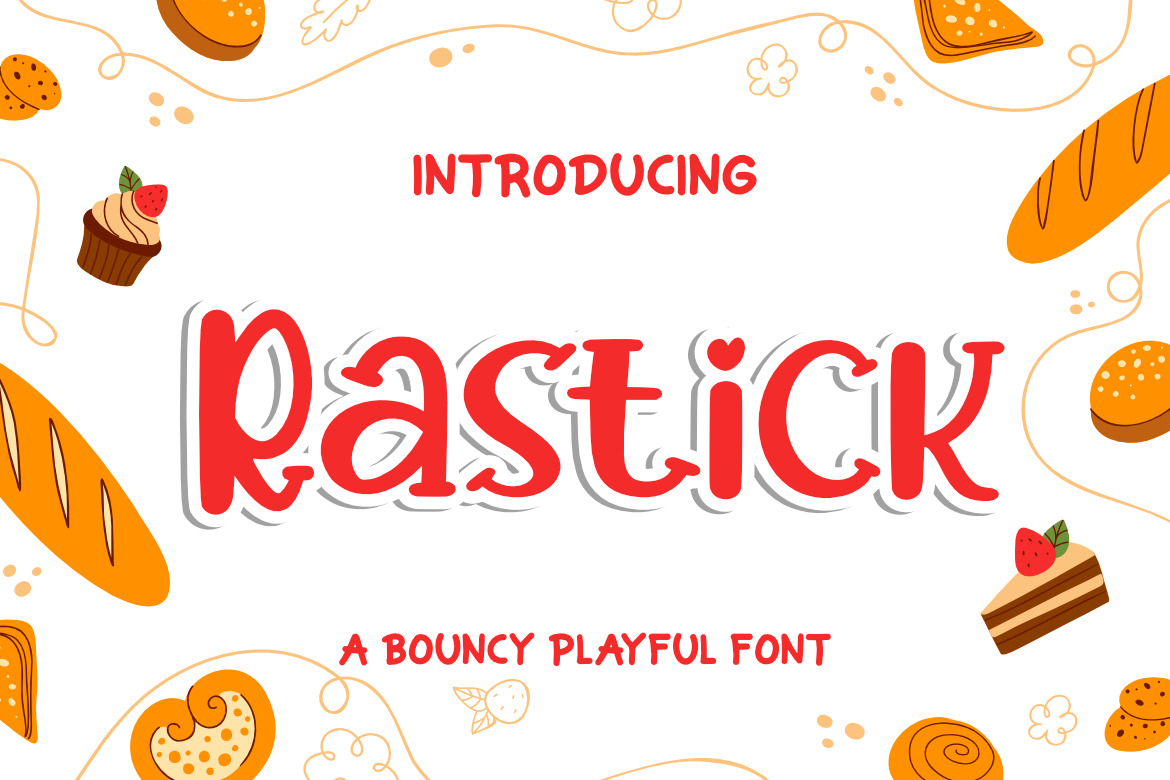
Rastick a Bouncy Playful Font
Rastick a Bouncy Playful Font, This font is made with a high premium quality level which you can use as flyers, quotes, posters, banners, packaging, merchandise, logotypes and much more.